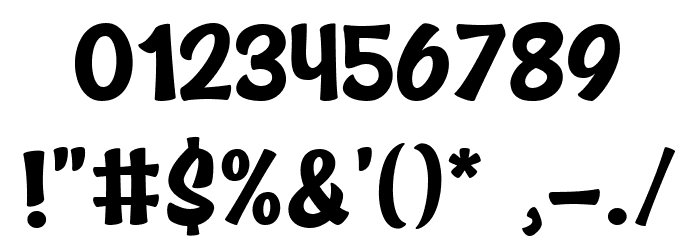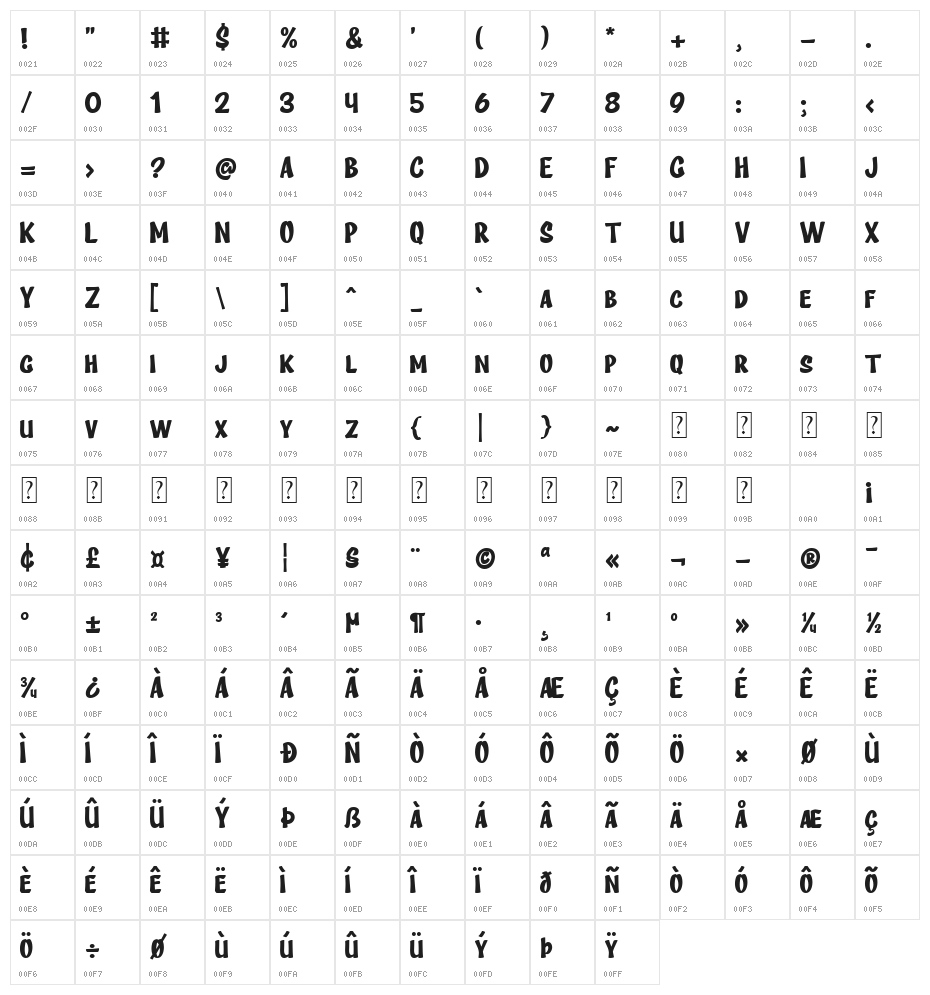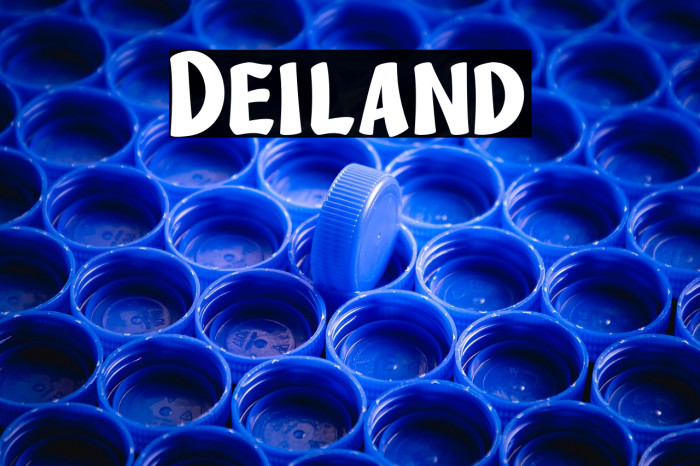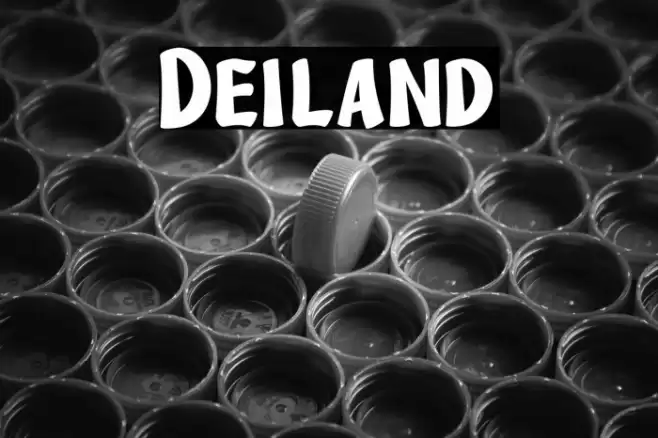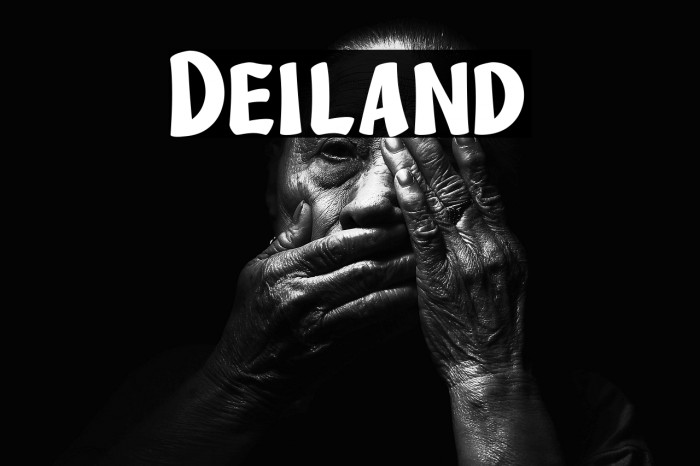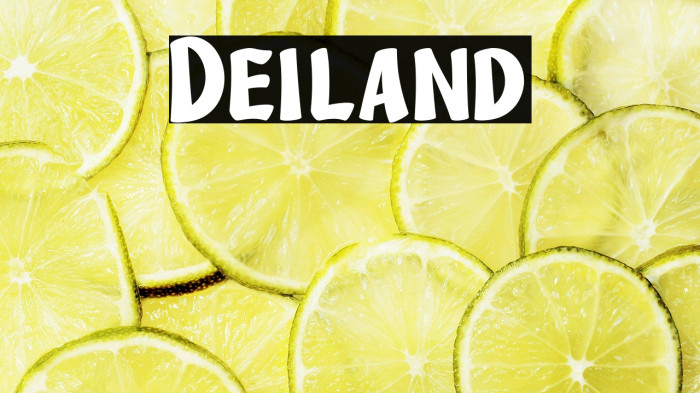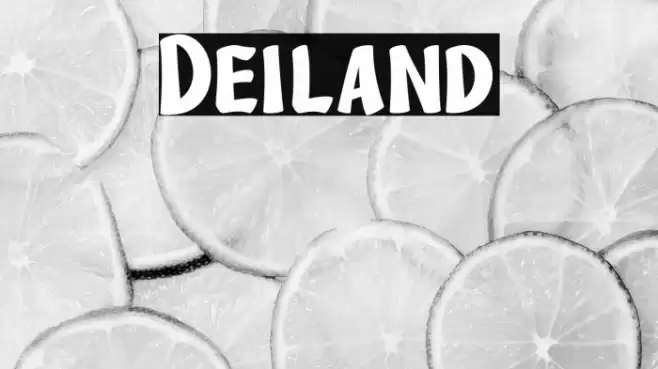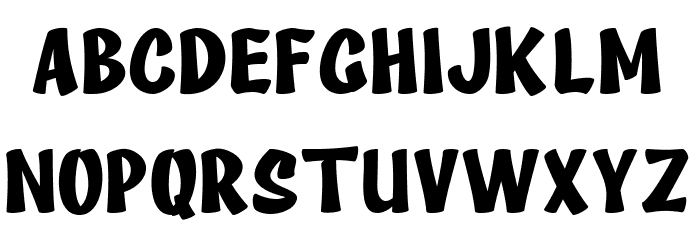
Deiland Font
Deiland Description
This font features a bold and playful style with a hand-drawn appearance. The characters are thick and rounded, giving a friendly and approachable feel. The uppercase and lowercase letters maintain a consistent weight, while the numbers and special characters are designed to match the overall aesthetic. The strokes are smooth, and the overall design is slightly irregular, adding to its charm. This font is ideal for projects that require a fun and informal touch, such as children's books, posters, or casual branding.
| Proposed Projects | Ideal for children's books, playful posters, casual branding, and creative projects. |